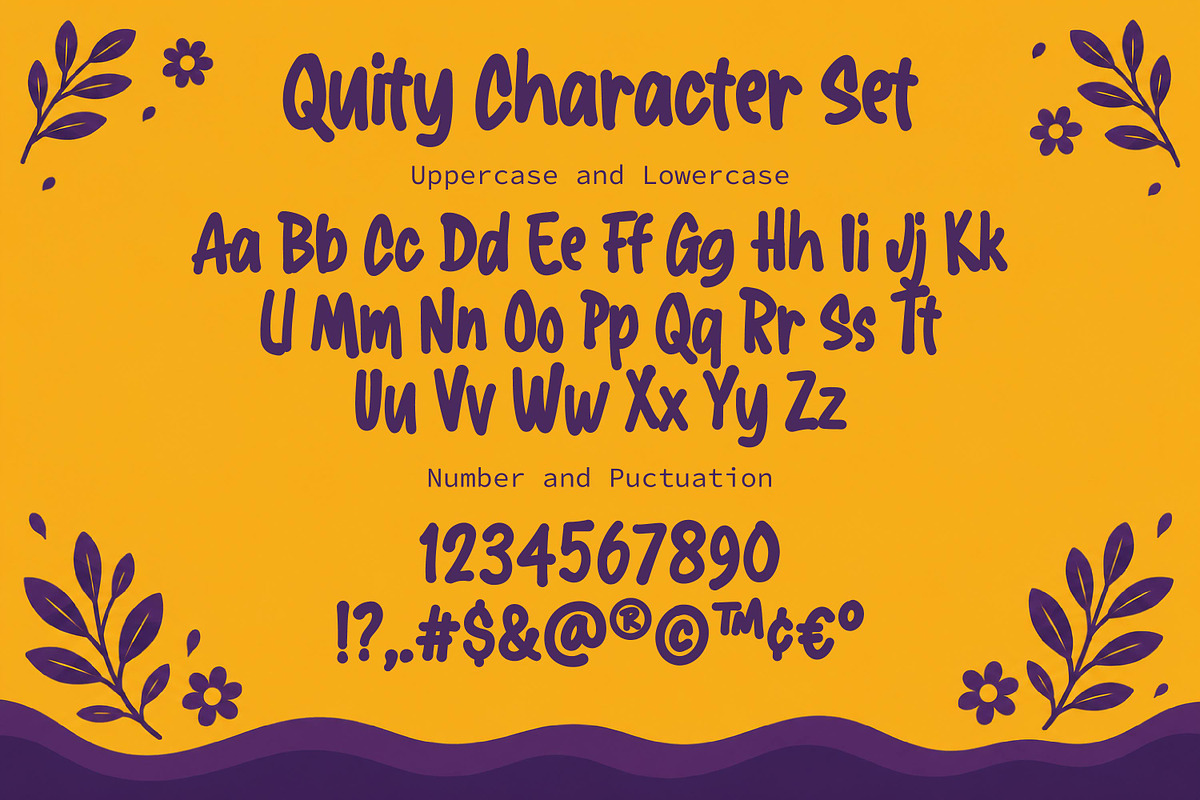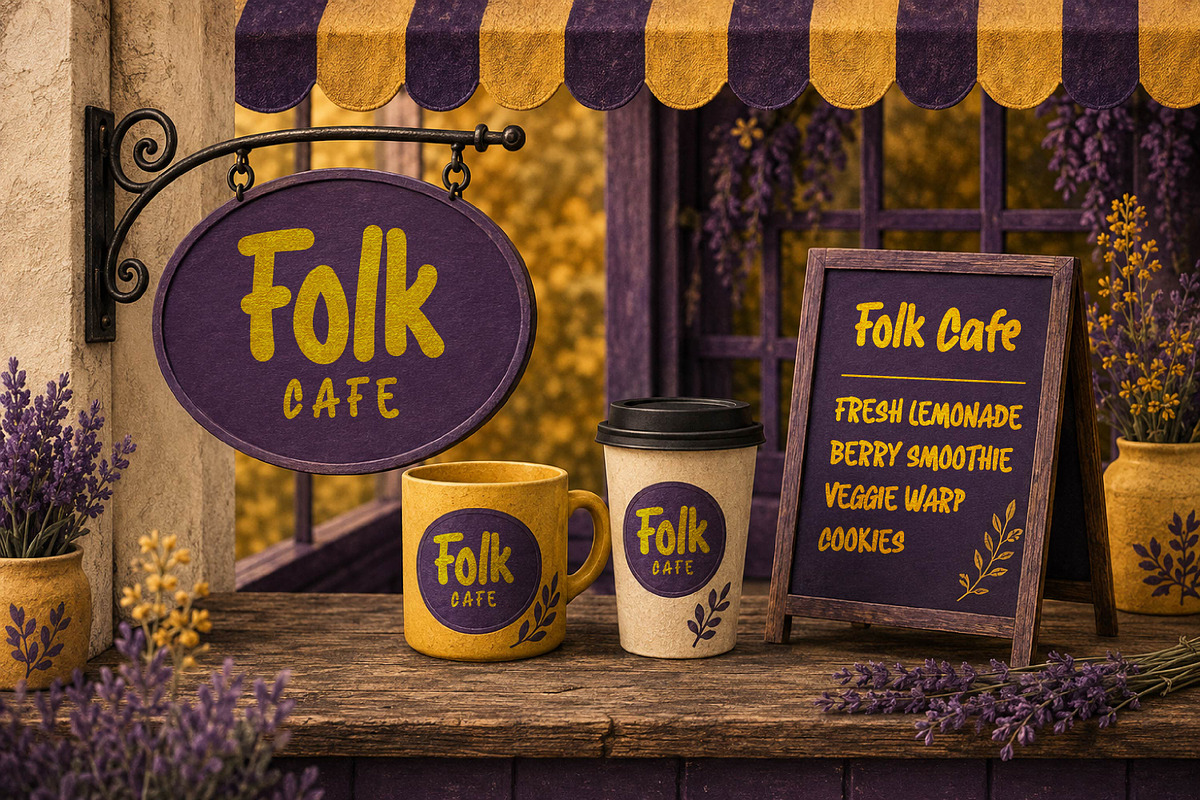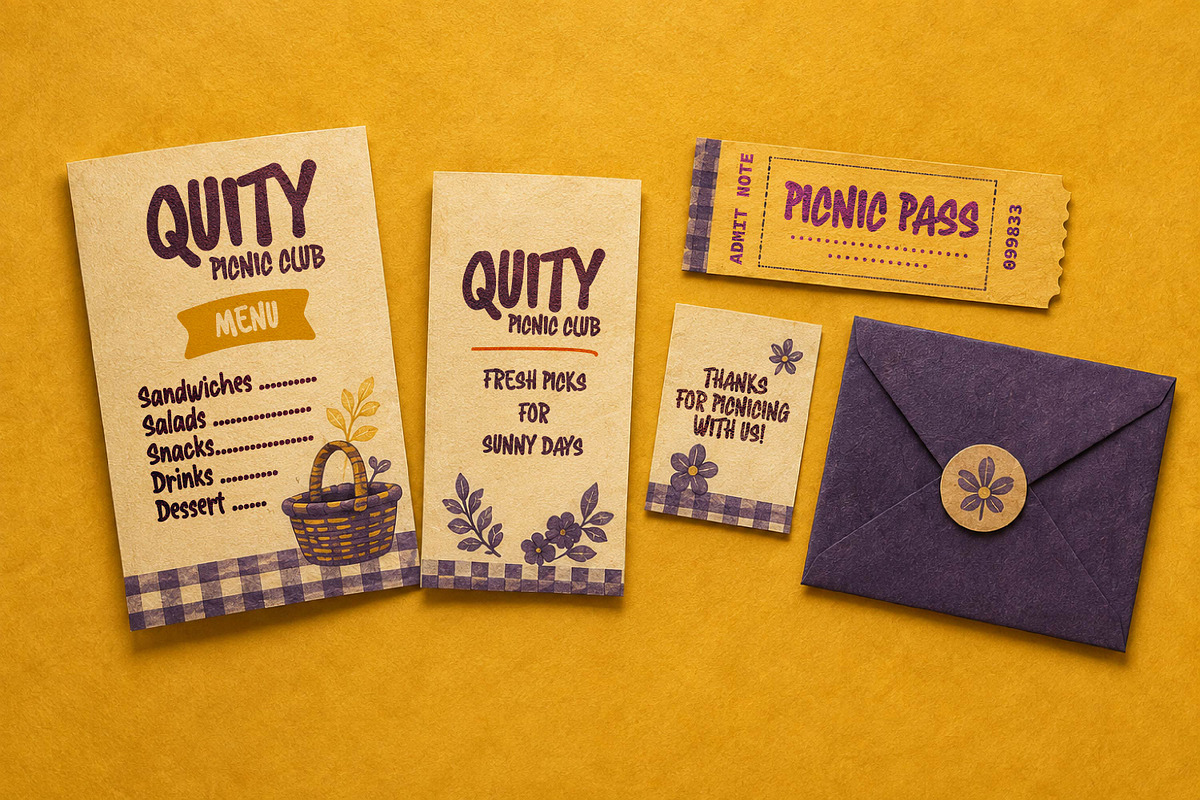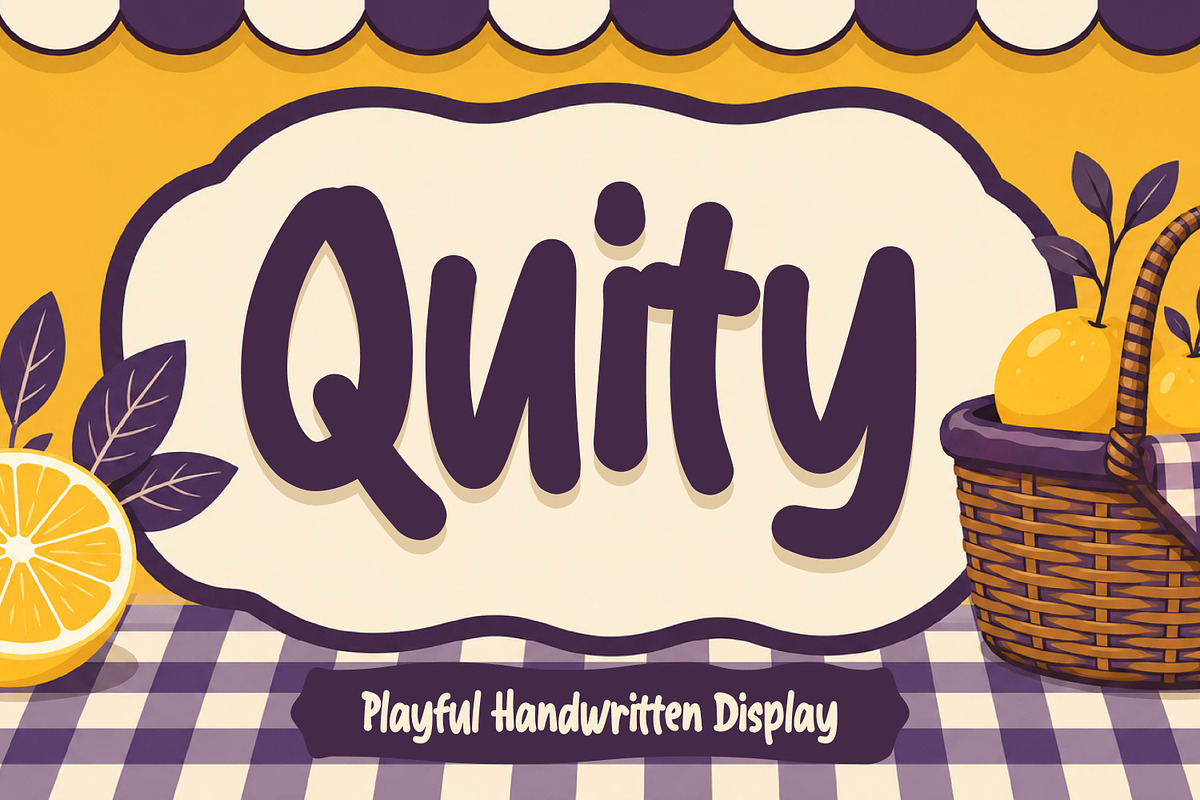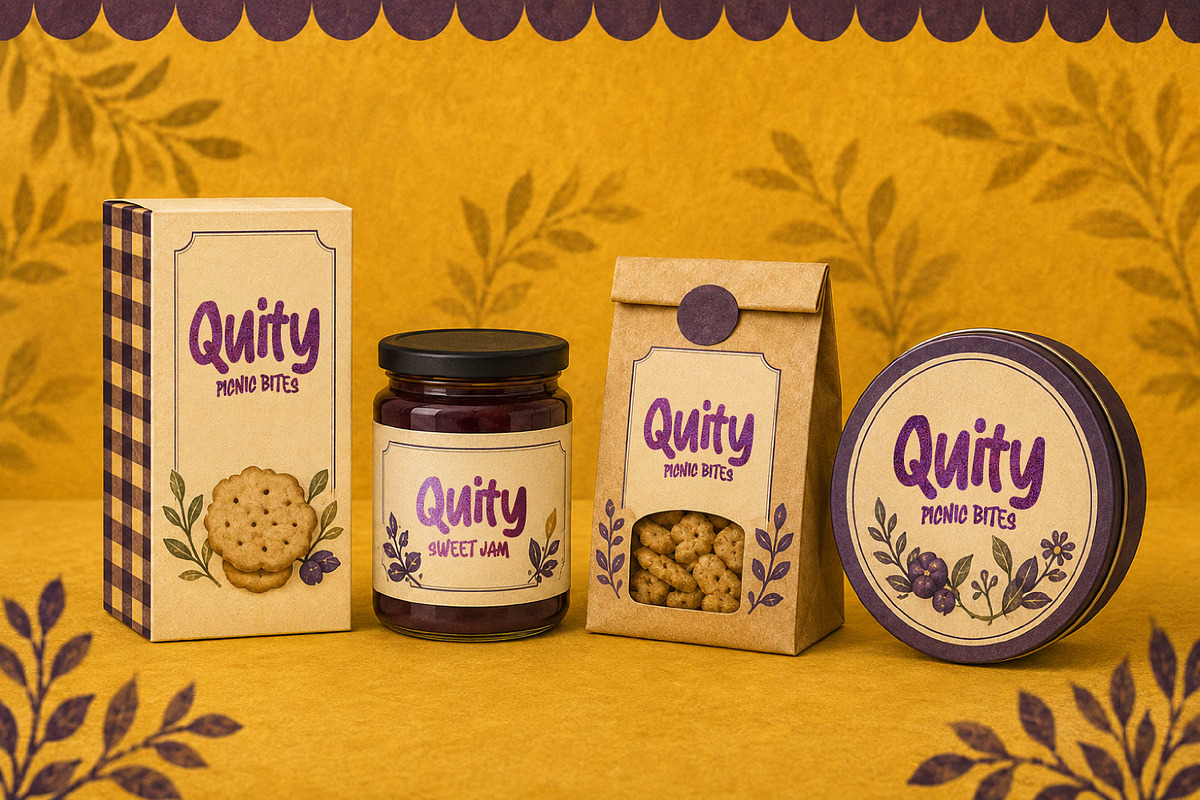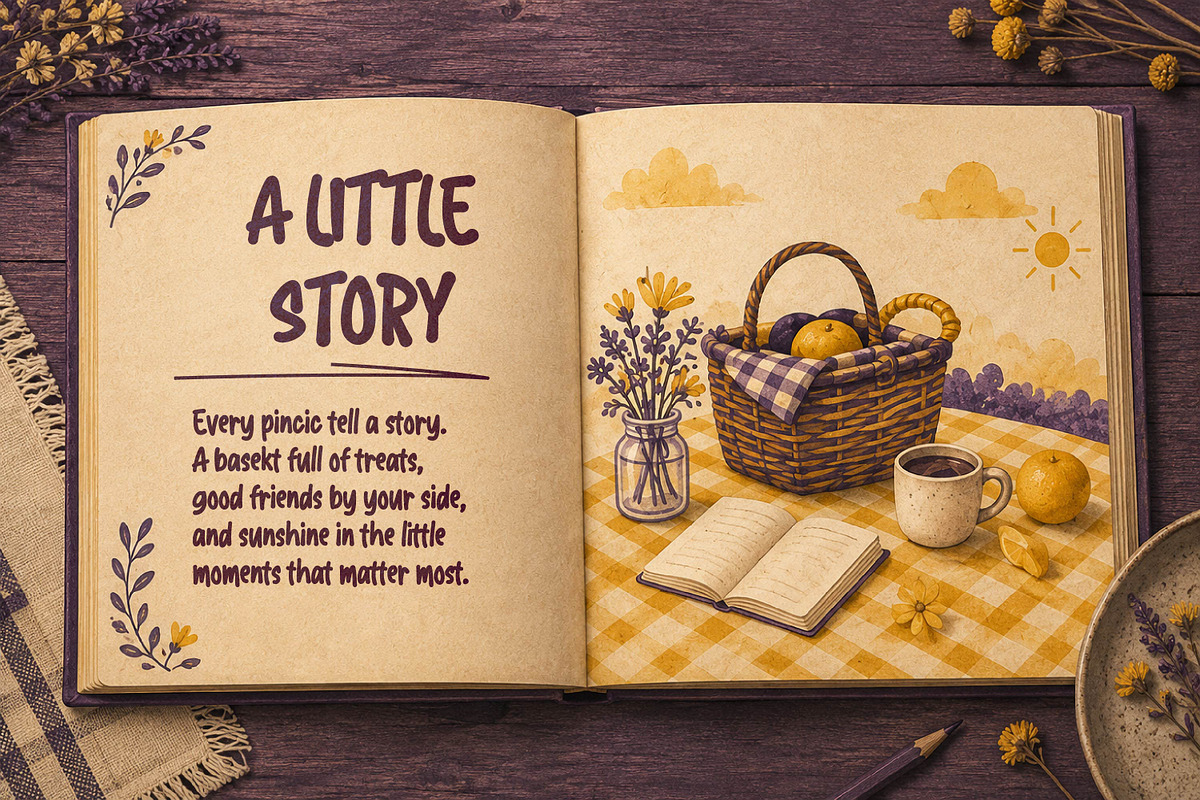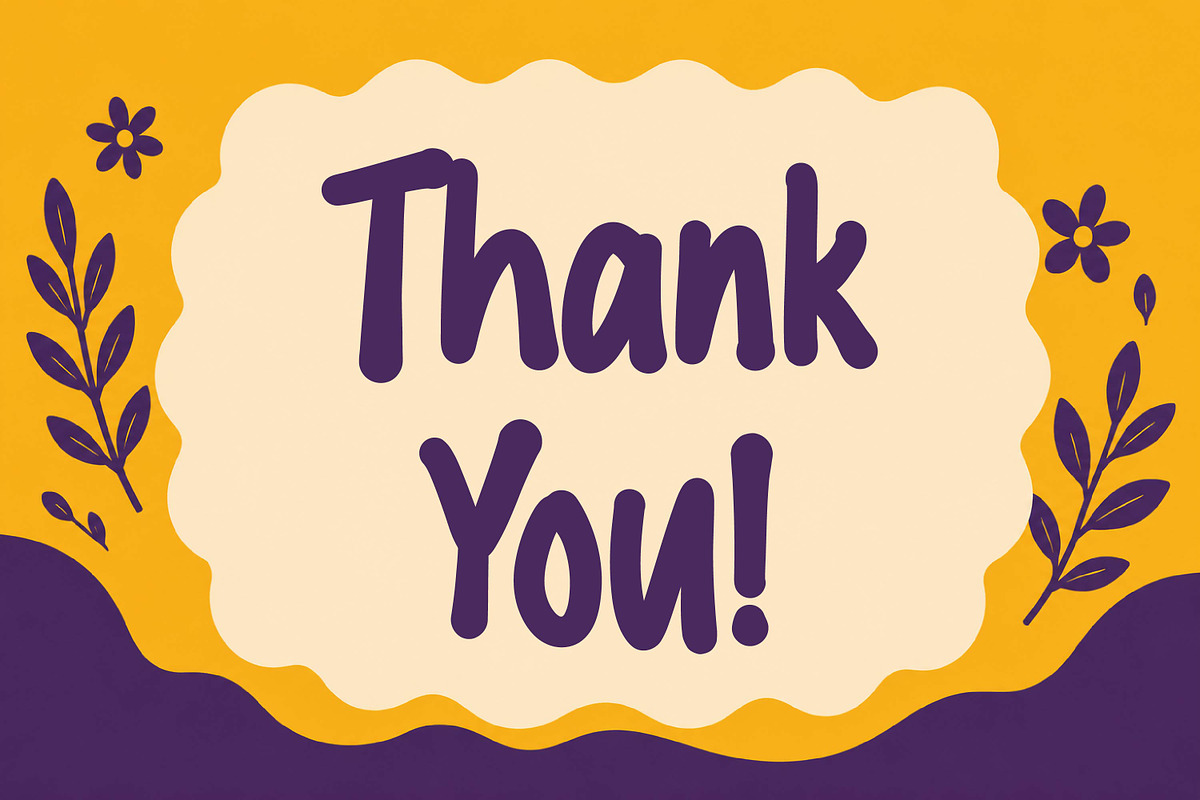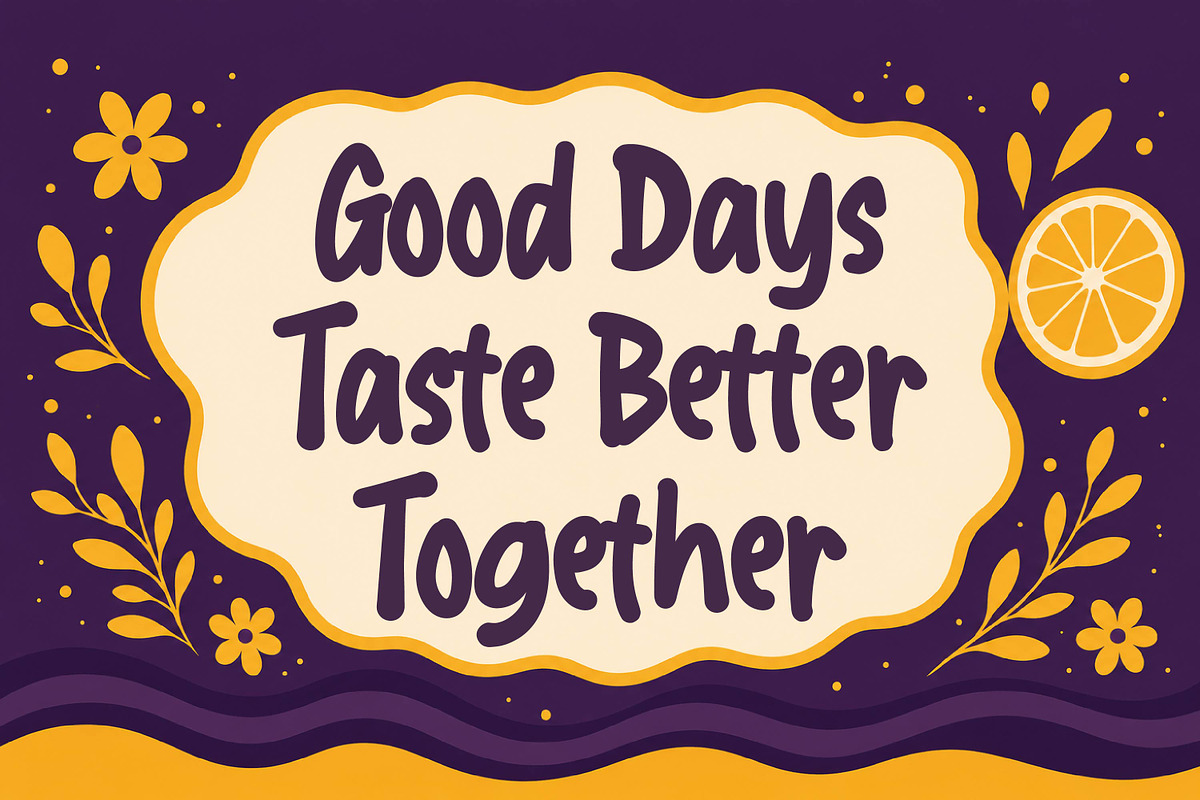
Quity - Playful Handwritten Display
Quity - Playful Handwritten Display Font
Quity is a playful handwritten display font with friendly, organic letterforms and a warm handmade personality. Perfect for kids projects, food packaging, picnic themes, posters, branding, invitations, crafts, social media, and cheerful everyday designs.